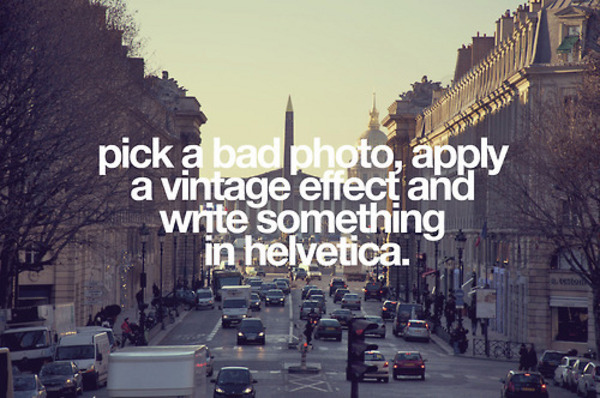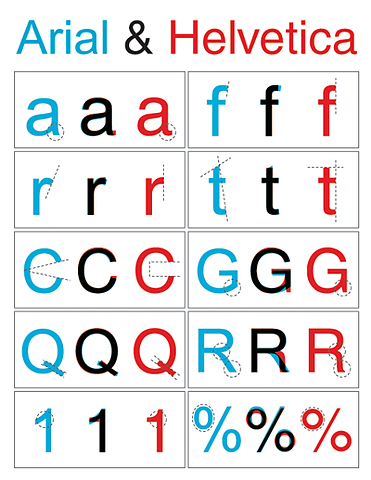
At the moment I like Myriad Pro.
I'm all about times new roman now. I used to like trebuchet but it started to look kind of funky in my work emails so I switched. TNR works great now and since I see it everywhere I don't get a font headache.
I've never particularly liked Helvetica (or Arial like the OP set 'Helvetica' in 😉), though I enjoyed the documentary. I don't necessarily pick favorites.
Well, since Melrose and OutThere kind of prematurely killed my experiment, how many of you actually noticed that "Helvetica" was set in Arial?
I'd have thought the "t" was a dead giveaway.
And if I had a t-shirt made that said "Helvetica" set in Arial, how many of would you would consider buying one?
I have two occupations, which require me to compose on-air graphics, web graphics, and bumper stickers -- so what I use tends to depend on what medium I'm working in. But here are the ones I tend to fall back on a lot:
😀 Okay, I don't really use Halloween a lot -- I just like it. And I do find that Digital Strip is a nice substitute for Comic Sans in things like word balloons.
I also like Gotham quite a lot -- I just don't have it.
Well, since Melrose and OutThere kind of prematurely killed my experiment, how many of you actually noticed that "Helvetica" was set in Arial?
I'd have thought the "t" was a dead giveaway.
And if I had a t-shirt made that said "Helvetica" set in Arial, how many of would you would consider buying one?
It was the tail on the "e" that gave it away. Thus,
Helvetica is squarer, a bit less rounded (e, a, o) and a bit thinner stroked.
Arial, contrary to popular opinion, wasn't originally made for Microsoft but was used because they wanted to cheap out and - rightfully - figured most people either wouldn't care or wouldn't notice.
And how do you guys feel about Arial?
Can't stand it; a horrible narrow font, to my eyes (literally) and one I find quite difficult to read; actually, I view it as an unfriendly font.
My personal favourites are Garamond - which has a lovely, timeless, elegance, and Arno which is an exceedingly elegant font. For everyday use, where personal favourites are not necessarily indulged, such as in a work environment, I quite like Times New Roman.
Nimbus Sans
That brings back bad memories of an inhouse job that went from trouble to disaster. Useless makeweight family without the versatility of Helvetica Neue.
Gotham: nice, but not so great for logos. Gotham Rounded, one of the nicer rounded variants of a number of different sans. Today SB: nice contemporary humanist, large x height, troublesome ampersand. Stone family: an essential for any collection.
But really, my favourite fonts are whatever gets the job done at any given time. This week I've been working on a set of ads for diamonds that use Disturbance.